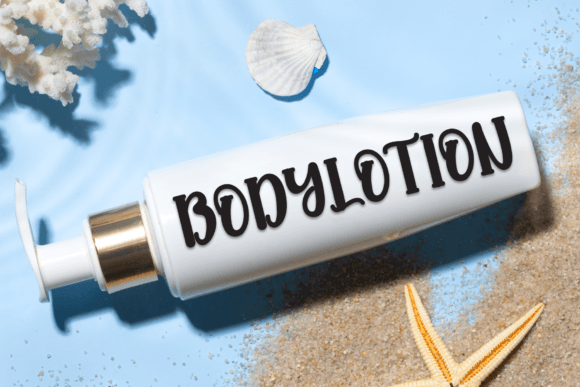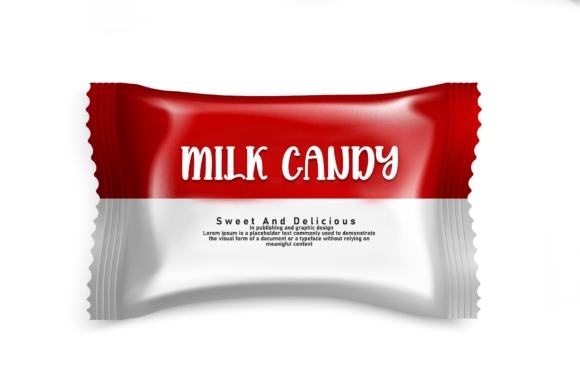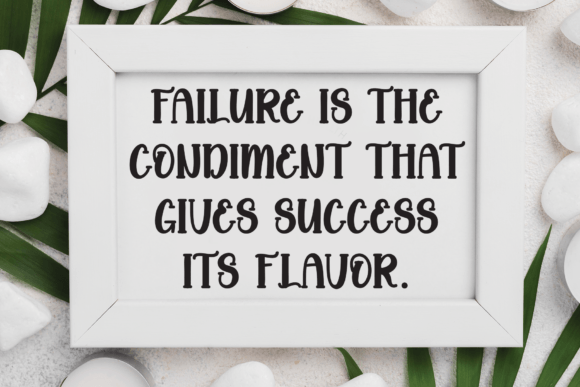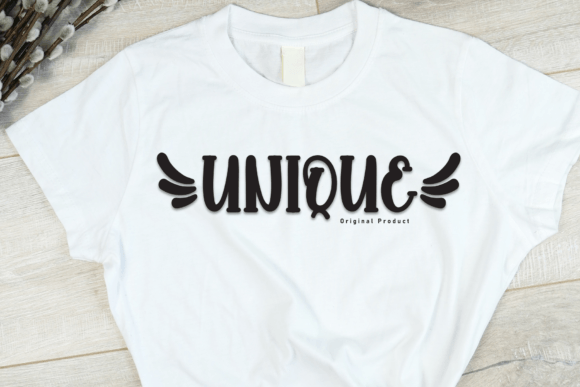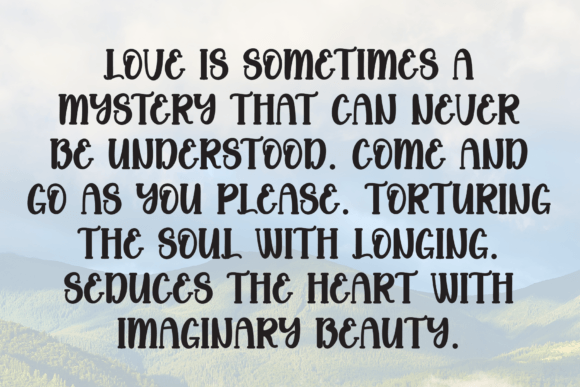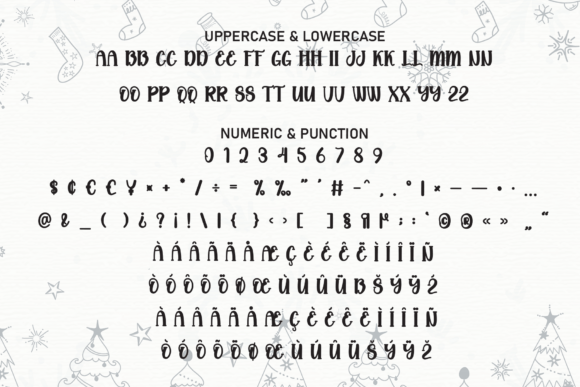
Introducing Christmas Ornament Font: A Charming Handwritten Display Font
Are you looking for a font that adds a touch of sweet elegance and whimsy to your design projects? Look no further than the Christmas Ornament Font, a charming and affable handwritten display font that’s perfect for crafting wedding invitations, greeting cards, and more. In this article, we’ll dive into the details of this intriguing typeface and explore its many uses for designers and crafters.
A Font that Bursts with Personality
The Christmas Ornament Font is a unique and eye-catching typeface that’s bursting with personality. Its handwritten style is both elegant and playful, making it perfect for designs that require a touch of sophistication and whimsy. Whether you’re creating wedding invitations, greeting cards, or any other design project, this font is sure to add a touch of delight to your work.
One of the primary uses of the Christmas Ornament Font is for crafting wedding invitations and greeting cards. Its sweet elegance and whimsical style make it perfect for conveying heartfelt messages and adding a touch of romance to your designs. Imagine creating beautiful wedding invitations that set the tone for a magical and unforgettable day. With this font, you can add a touch of personality and charm to your designs that will leave a lasting impression on your recipients.
A Font that Adds Effervescence to Your Designs
The Christmas Ornament Font is more than just a beautiful typeface – it also adds a touch of effervescence to your designs. Its playful and whimsical style is sure to bring a smile to the faces of your recipients, making it perfect for designs that require a touch of fun and personality. Whether you’re creating Christmas cards, birthday invitations, or any other design project, this font is sure to add a touch of delight and joy to your work.
Versatile and Easy to Use
One of the best things about the Christmas Ornament Font is its versatility. It’s easy to use and can be applied to a wide range of design projects, from wedding invitations and greeting cards to posters, flyers, and more. Whether you’re a professional designer or a crafter, this font is perfect for adding a touch of personality and whimsy to your work.
Key Features of the Christmas Ornament Font
- Charming and affable handwritten display font
- Perfect for wedding invitations, greeting cards, and other design projects
- Bursts with personality and whimsy
- Effervescent style adds a touch of fun and delight to your designs
- Easy to use and versatile
- Perfect for designers and crafters
Tips for Using the Christmas Ornament Font
Here are a few tips for using the Christmas Ornament Font in your design projects:
- Use it for headings and titles to add a touch of personality and whimsy
- Pair it with other fonts to create a unique and eye-catching design
- Use it for creating custom illustrations and graphics
In conclusion, the Christmas Ornament Font is a charming and affable handwritten display font that’s perfect for designers and crafters looking to add a touch of sweet elegance and whimsy to their work. Its effervescent style and bursts of personality make it perfect for wedding invitations, greeting cards, and any other design project that requires a touch of delight and fun. With its versatility and ease of use, this font is sure to become a favorite in your design arsenal.
Get Ready to Add Some Holiday Cheer to Your Designs